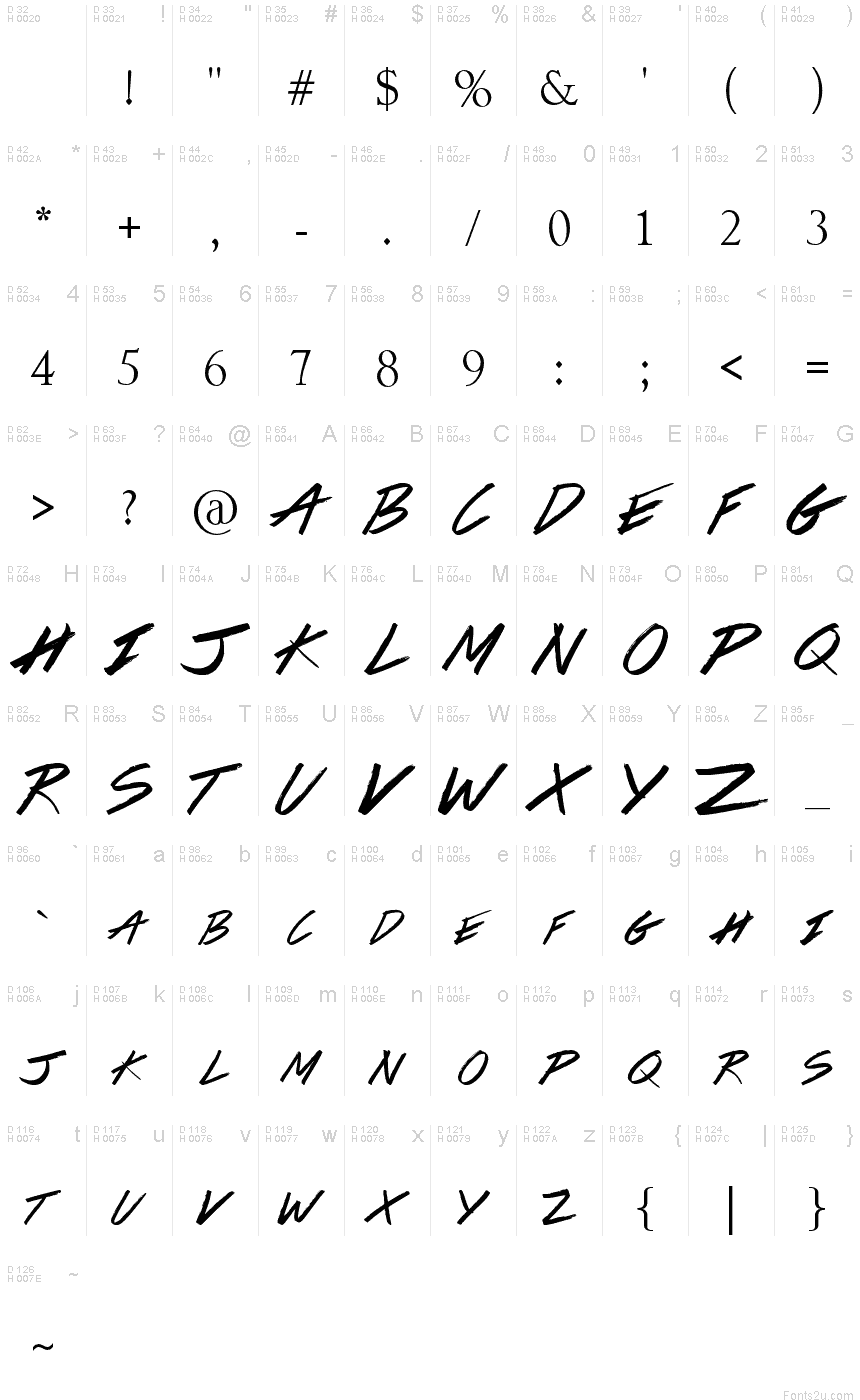
Colors Of Autumn
Colors of Autumn from TattooWoo.com is a free handwritten display font with the force of hurried marker lettering. Its broad, sharply tapered strokes change width abruptly, giving the letters a cut-and-swept profile. Rough edges and stray ink-like streaks keep the otherwise confident forms raw and immediate.
It will speak most clearly to music, streetwear, and action-sports audiences. The lettering suits album covers, apparel graphics, event posters, product packaging, and bold brand marks, especially when a design needs speed and attitude rather than polish. Those pointed ends and slashing cross-strokes can echo scratches, motion trails, or hand-drawn artwork throughout a larger graphic concept.